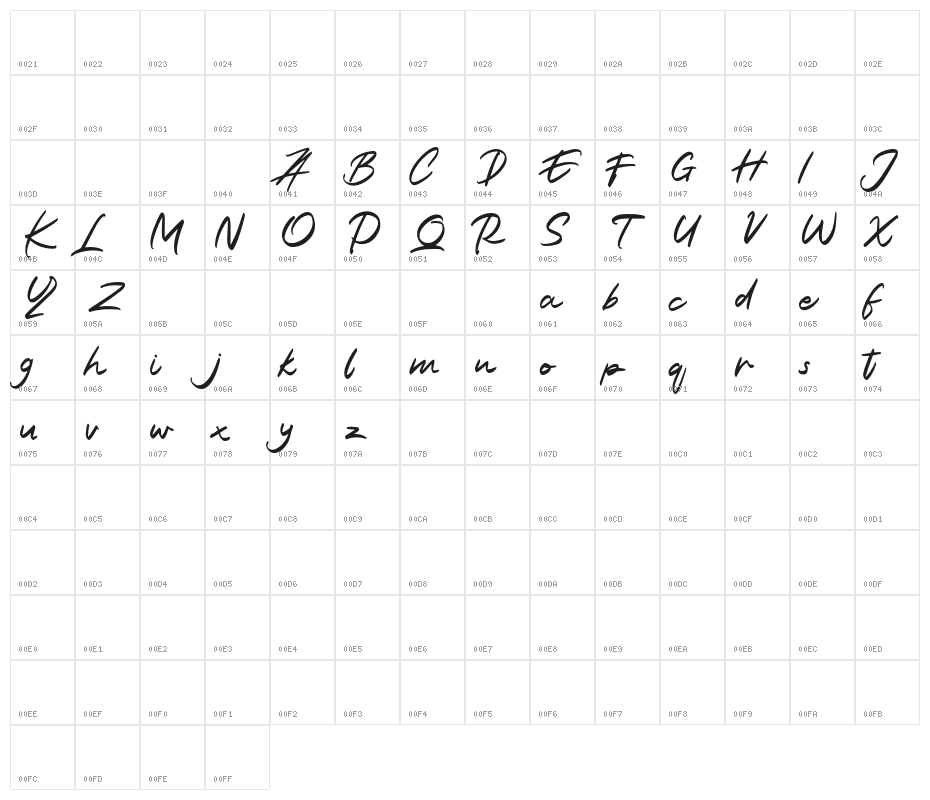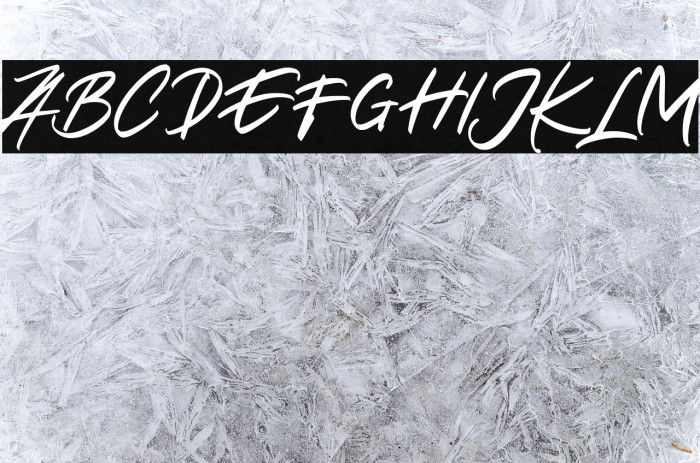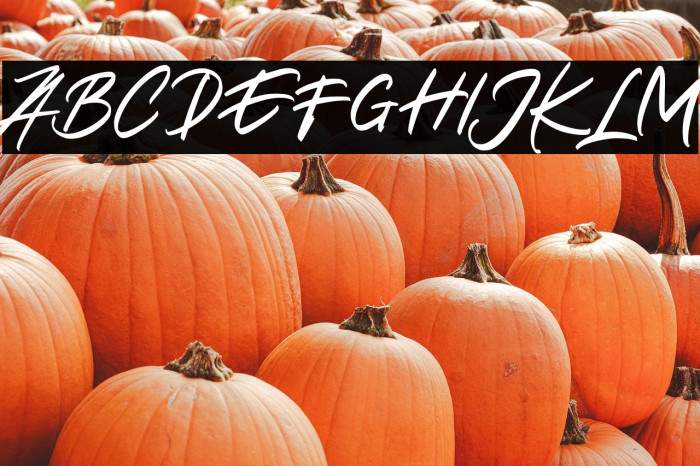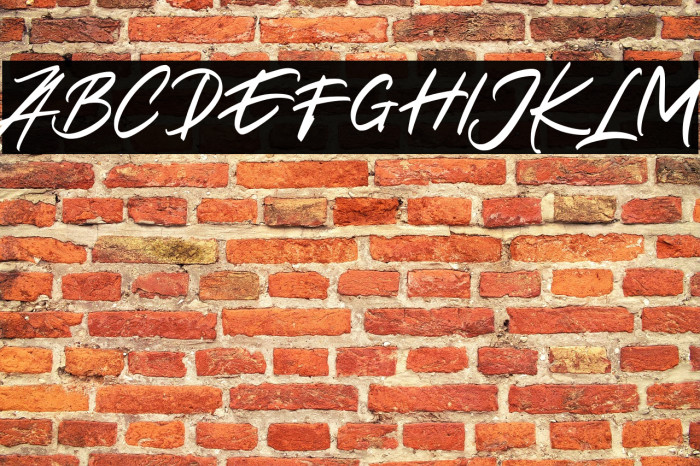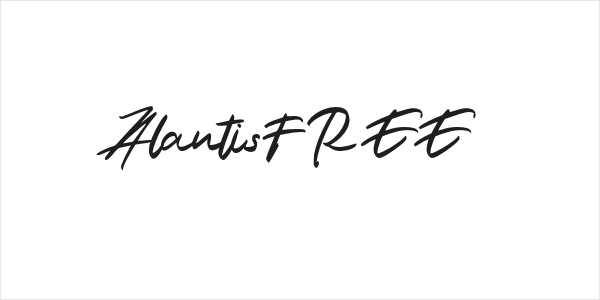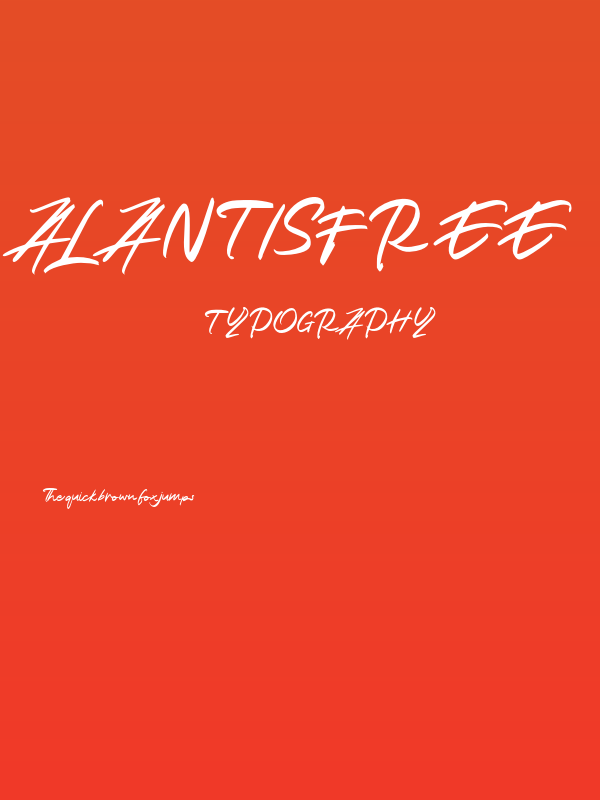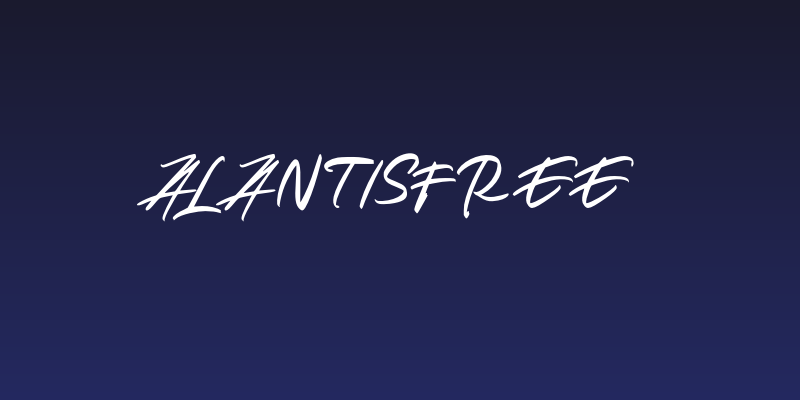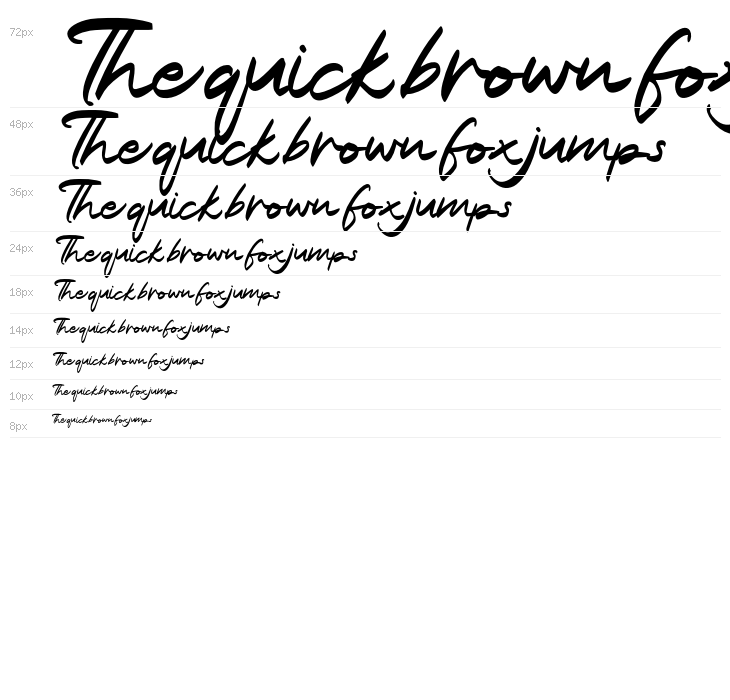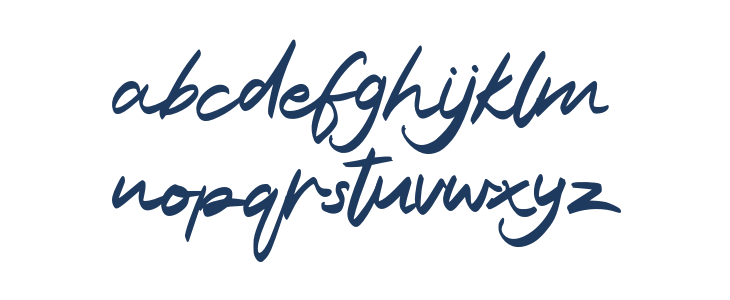
AlantisFREE Font
AlantisFREE Description
This font exhibits a dynamic and fluid script style, characterized by its elegant and flowing letterforms. The uppercase letters are bold and slightly slanted, giving a sense of movement and energy. The lowercase letters maintain a consistent style, with smooth curves and a handwritten feel. The font's overall appearance is both artistic and modern, making it suitable for creative and expressive design projects. It captures attention with its unique blend of sophistication and casual flair, ideal for adding a personal touch to any text.
| Use Case | Logos, Headlines, Invitations |
| Proposed Projects | Ideal for wedding invitations, branding, greeting cards, and artistic projects. |